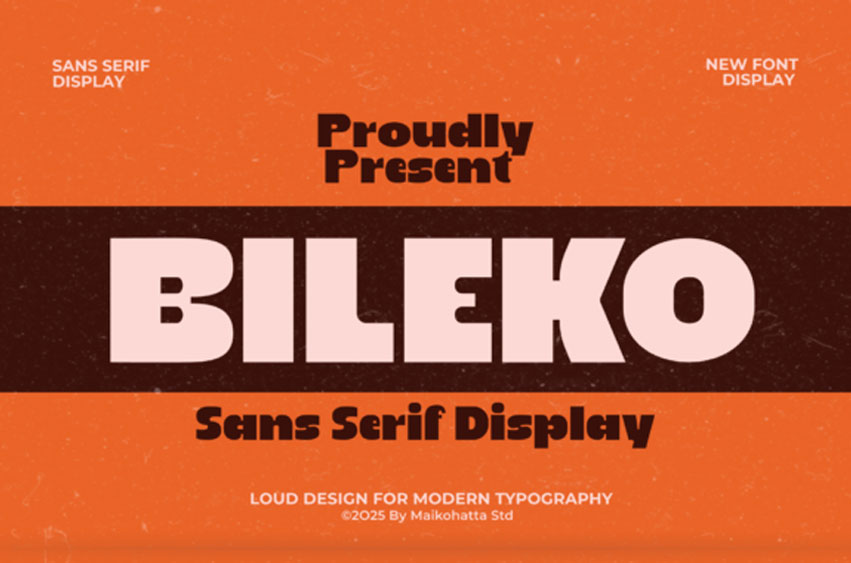
Bileko Font is a bold and modern sans-serif display font designed for strong visual impact.
With its heavy weight, clean geometry, and confident character, Bileko is perfect for headlines, posters, branding, logos, packaging, social media, and modern advertising designs.
This font provides a bold and powerful presence while remaining clean and easy to read. Its solid shapes and contemporary style make it ideal for attention-grabbing, stand-out typography in both digital and print projects.
This Bileko typeface features an extra-heavy weight and ultra-tight spacing, creating a powerful block-like aesthetic that dominates any design space. The Bileko font is the go-to choice for bold branding, music festival posters, and statement apparel where subtlety is not the goal. Pair it with high-contrast colors to maximize its modern, aggressive, and tech-forward energy.
Bileko is perfect for modern branding, editorial layouts, street style designs, and bold, attention-demanding visual identities.